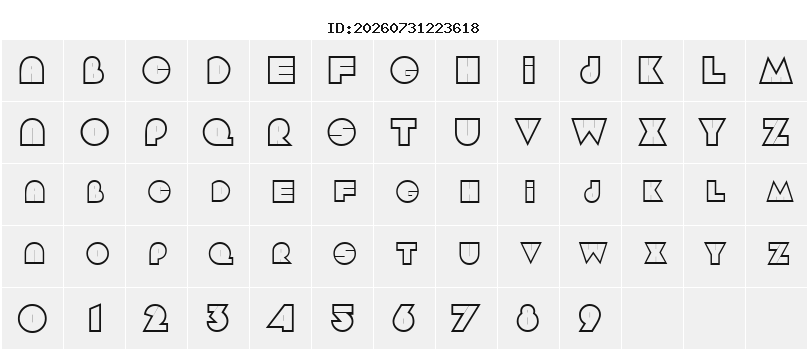
• Font Name: Laugh Hollow
Laugh Hollow.ttf is a modern, elegant sans-serif font designed for ultimate readability and visual harmony. Perfect for branding, headlines, web design, and print materials.